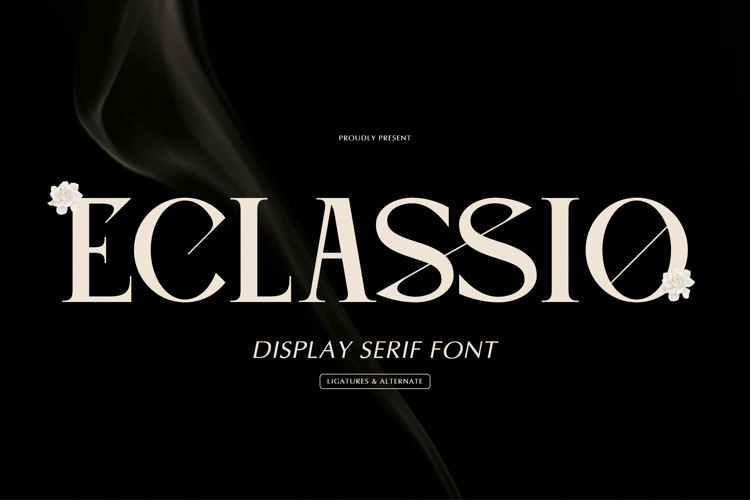
Eclassio Font
Eclassio | Display Serif Font is suitable for any projects such as: logos, branding projects, homeware designs, product packaging, mugs, quotes, posters, shopping bags, t-shirts, book covers, name card, invitation cards, greeting cards, label, photography, watermark, special events, and all your other lovely projects that need a Display Serif Font taste.